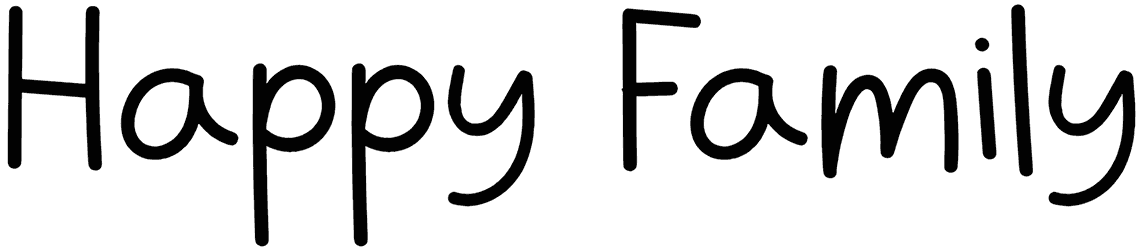
Happy Family Font
Are you looking for a readable script font for your next project? So we have got you covered by introducing Happy Family. This handwritten font can meet a wide range of your design needs and provide you with an opportunity to implement creative projects.
You can use this font on the cover of magazines, movie titles, or cover images of YouTube videos, and by creating a natural and human feeling, you can easily gain the trust of the audience.
Happy Family is a cool looking and friendly handwritten font. Whether you are using it for cartoon-related designs, children’s games, quotes, titles, brand names, book covers, posters, or just any creation that requires a touch of beauty, this font is a great choice.